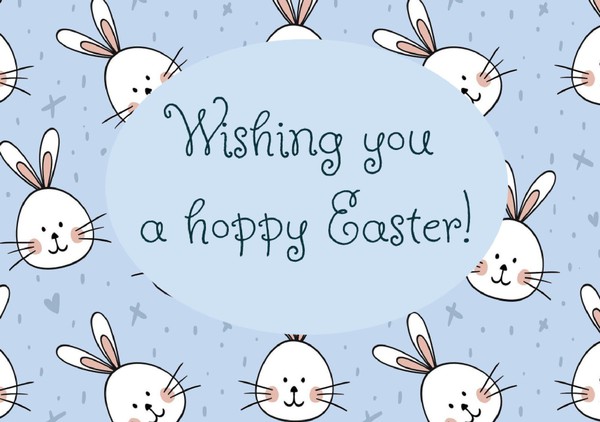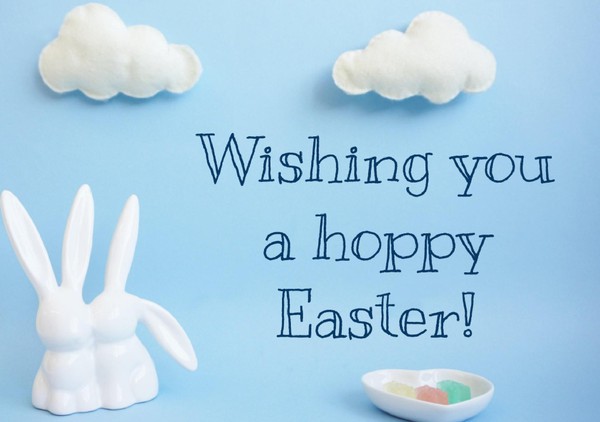
Rochester Font
This beautiful template features the Rochester font, which adds a touch of class to your Easter projects.
If you're looking for an elegant and sophisticated way to celebrate Easter, our Rochester Font template is a perfect choice. This beautiful template features the Rochester font, which adds a touch of class to your Easter projects.
Are you searching for an amusing and playful approach to incorporate some Easter merriment into your Google Docs? If that's the case, look no further than the Butterfly Kids font! This delightful and fanciful font is ideal for Easter-themed undertakings like bulletins, welcoming cards, and even materials for an Easter egg chase.
If you're looking for a fun and festive way to celebrate the Easter season, our Bonbon Font template is just what you need. This colorful and playful template features the Bonbon font, which adds a whimsical touch to your Easter projects.
If you're looking for a whimsical and charming way to celebrate Easter, our Twinkle Star Font template is a perfect choice. This playful and unique template features the Twinkle Star font, which adds a touch of magic to your Easter projects.
If you're looking for a fun and quirky way to celebrate Easter, our Kranky Font template is a perfect choice. This playful and unique template features the Kranky font, which adds a touch of whimsy to your Easter projects.
Choosing the right font for your Easter documents can be a challenge. With so many options out there, it's hard to know where to start. Do you go for a fun and playful font that captures the spirit of the holiday, or do you opt for something more elegant and refined?